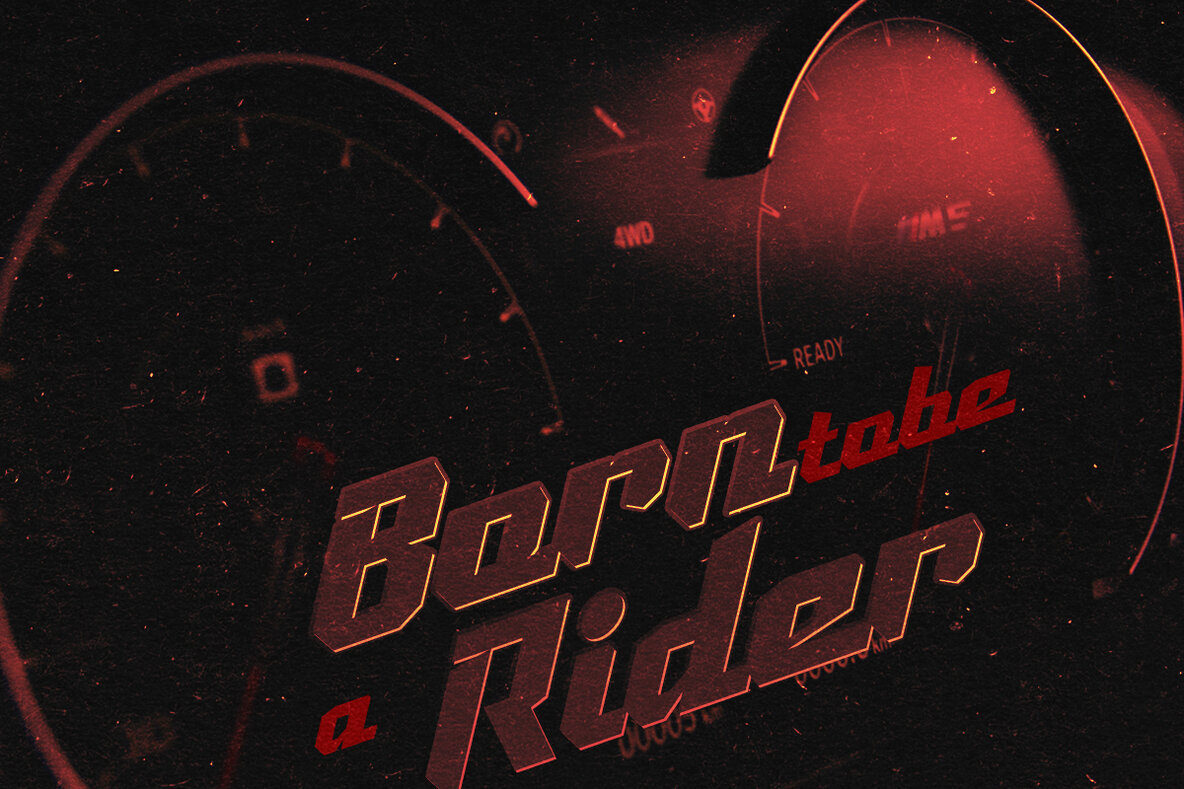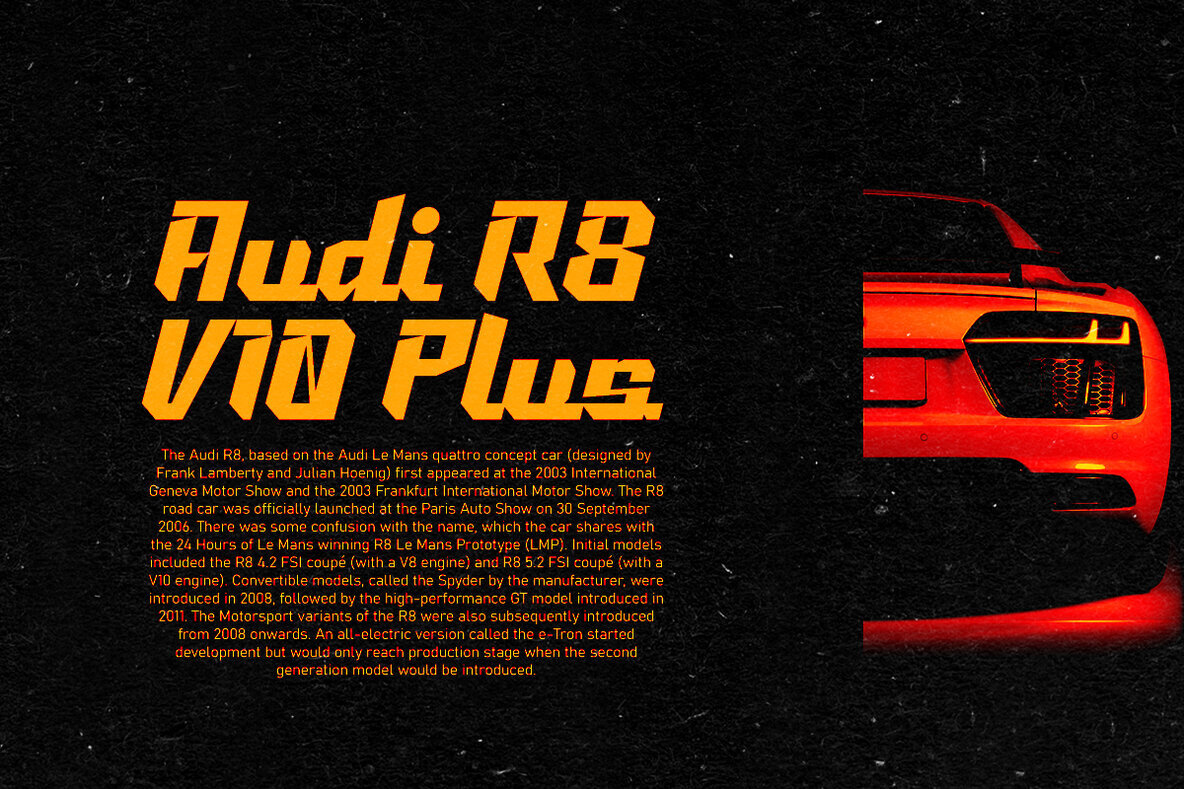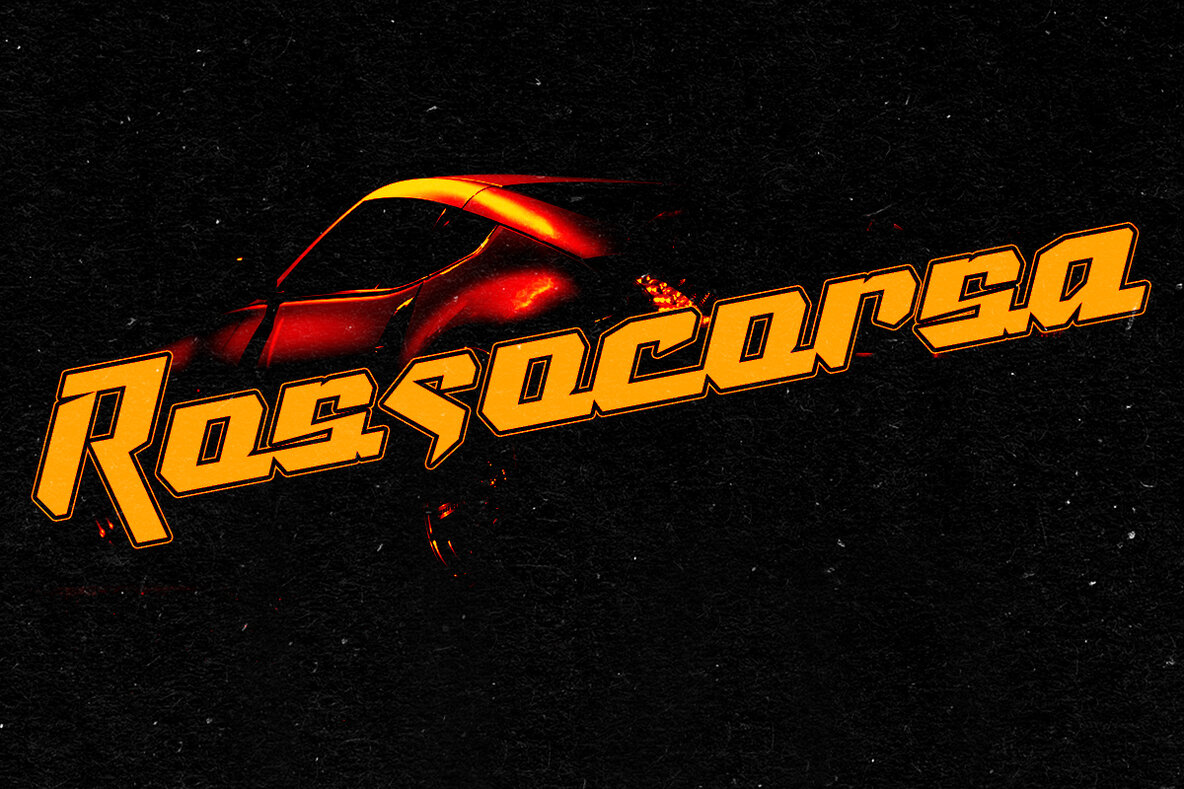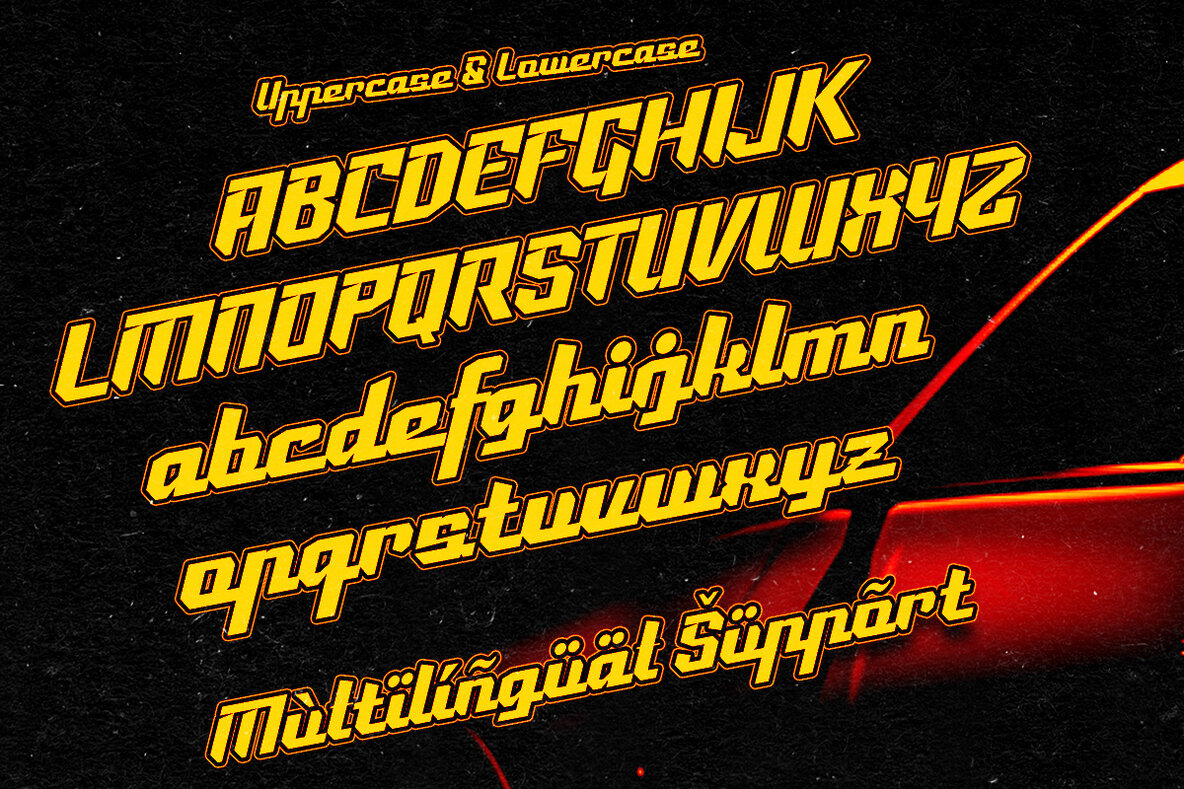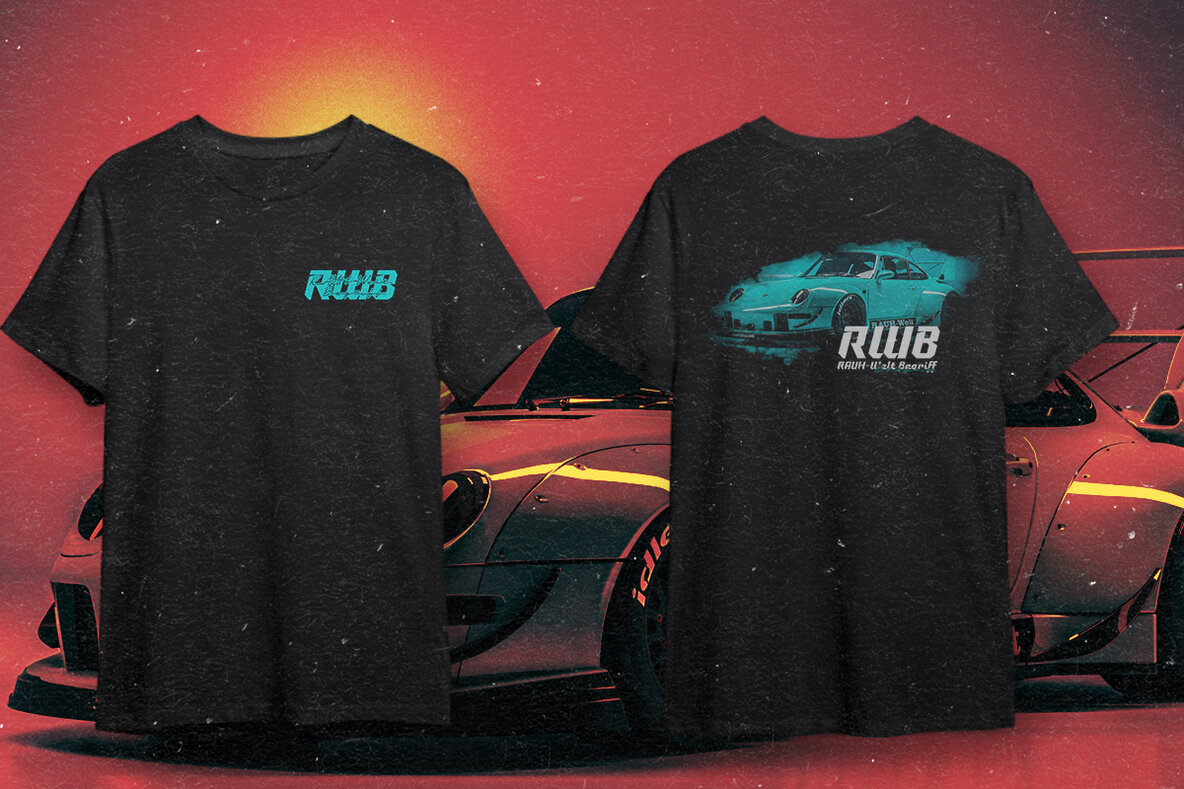
Racing Games Font
Racing Games Regular
Introducing Racing Games, a fresh display font with distinctive quirky letterforms that make it an ideal choice for branding, headlines, logotypes, stickers, editorial design, and more. Features include: